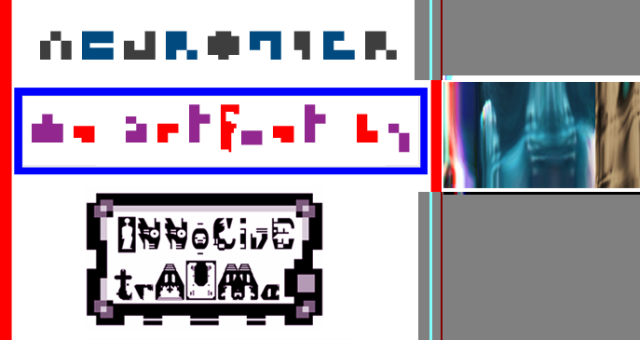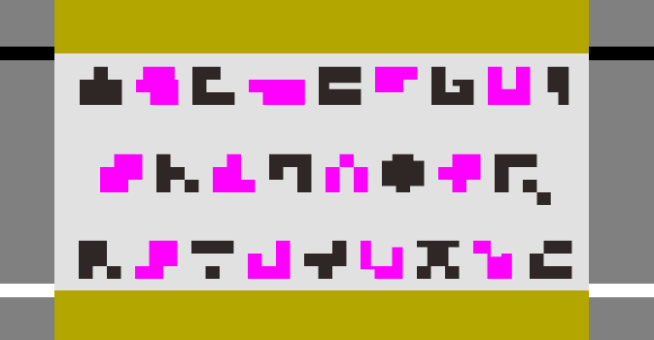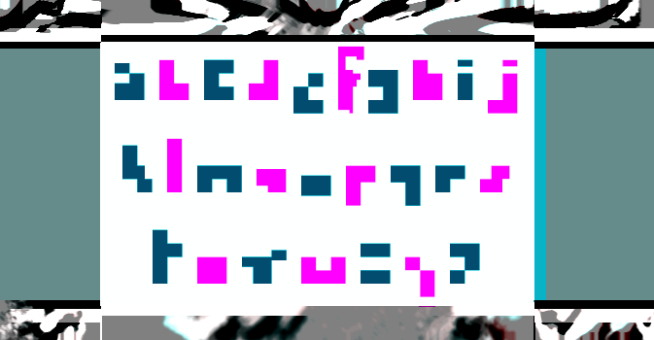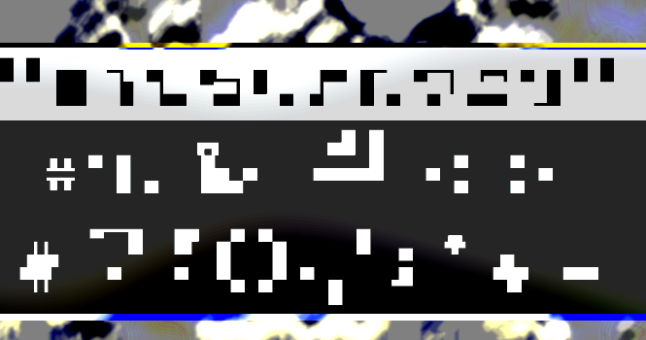
trAUMa 19 / Neuromicr
"Neuromicr", like all the "trAUMa" series, works at the frontier between Art & Type Design, Figuration & Abstraction, each font is a comprehensive world in which every glyph is a "living" entity. But put together they can produce your messages in the most accurate way.